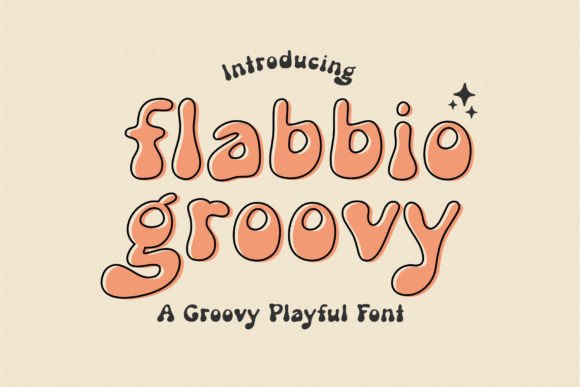
Introducing the Flabbio Groovy Font, the ultimate solution to all your design desires. Created by the talented jimtypestudio, this font family is a stunning addition to any collection. With its unique and aesthetic shape, it effortlessly captures attention and adds a touch of pizzazz to your projects.
Are you tired of using the same old fonts that everyone else is using? Look no further, because the Flabbio Groovy Font is here to revolutionize your designs. Its distinctive style sets it apart from the crowd, making it the go-to choice for those who crave originality and creativity.
One of the greatest advantages of this font is its versatility. It seamlessly adapts to any topic or theme, making it an incredible asset to your fonts' library. Whether you're working on headers, quotes, layouts for magazines, or any other project, the Flabbio Groovy Font will effortlessly enhance your creations.
But that's not all. The Flabbio Groovy Font is particularly well-suited for projects with a 60s and 70s design aesthetic. Its retro vibe instantly transports your audience to the groovy era, evoking feelings of nostalgia and fun. Imagine the impact it will have on your designs, taking them from ordinary to extraordinary.
When it comes to marketing, emotions play a crucial role in capturing the viewer's attention. The Flabbio Groovy Font excels in this area, as it exudes a sense of joy, excitement, and playfulness. Its curvy and bold letters create a visual rhythm that is impossible to ignore, leaving a lasting impression on anyone who lays eyes on it.
In conclusion, the Flabbio Groovy Font is the best font for handwritten Q and so much more. Its captivating design, versatility, and ability to evoke emotions make it a must-have for any designer. Don't miss out on this opportunity to enhance your creations and make a statement with your designs.